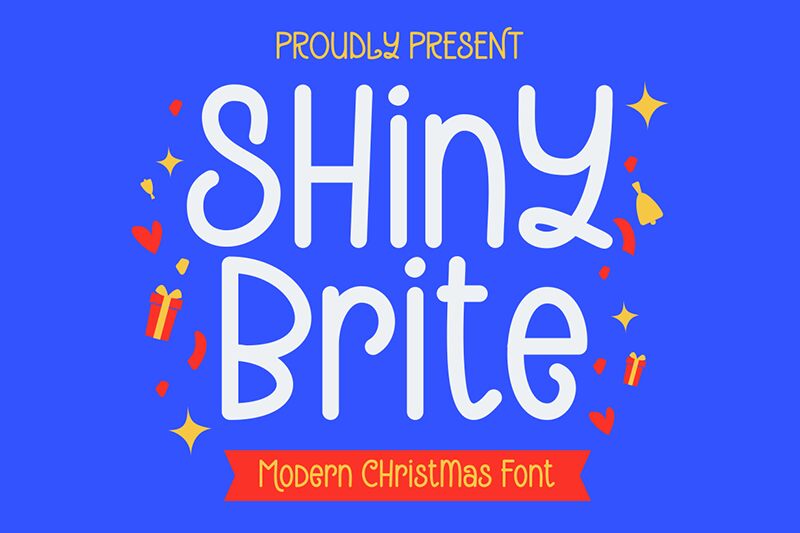
Shiny Brite font family by Gilang Ternadho is a script font with two font styles. This free font family brings a splash of whimsical and friendly letters that are approachable to the viewer. Its informal, festive character can fit to communicate thoughts that relate to holidays. Use this resource to create more modern and contemporary applications of your design ideas.
Results can come with likes of holiday-themed designs and cheerful branding. Other frequent uses include logo designs, poster ideas, book covers, branding, signage, website headers, mobile application footer, online signatures, editorials, and social media posts.